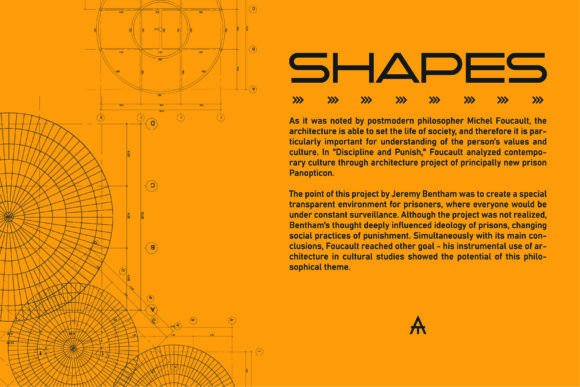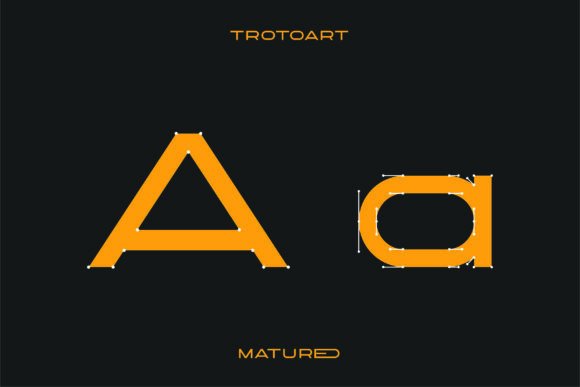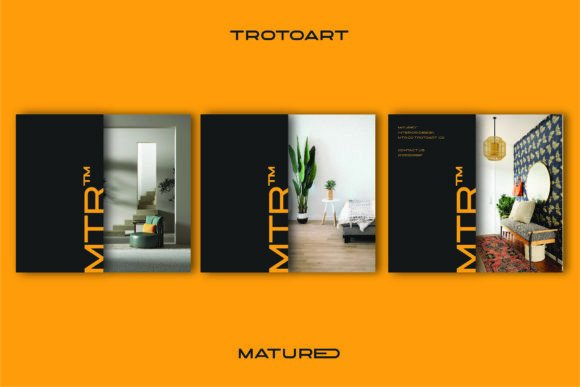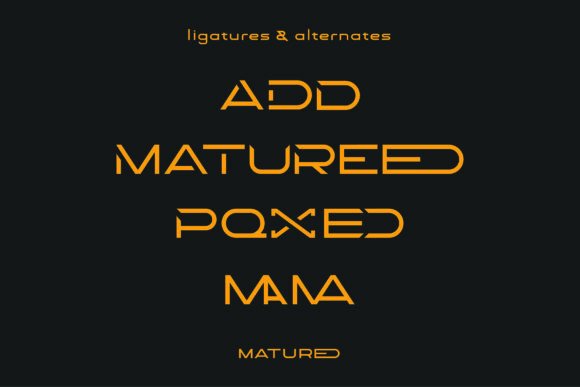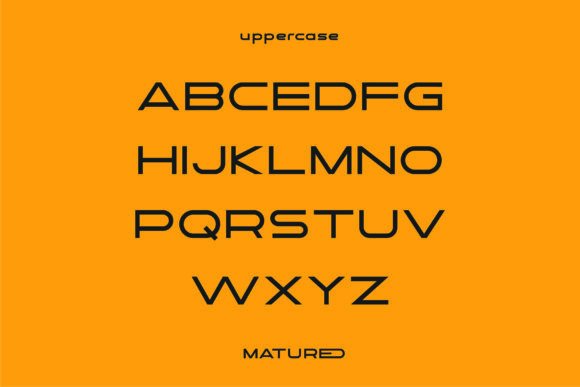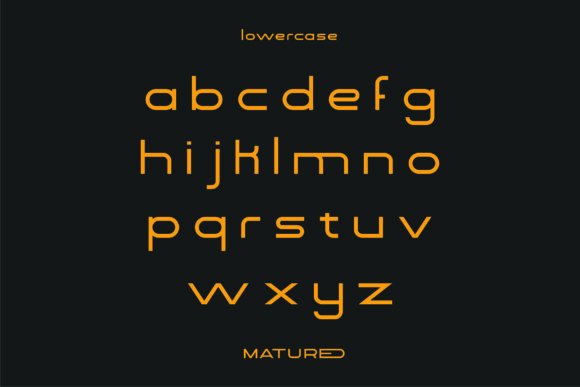
Introduction to Matured Font
Remember that moment when you’re working on a project and you finally find the perfect font to bring your design to life? It’s a feeling like no other, and for designers, it’s a crucial element that can make or break the success of a creative project. For those who have been searching for a high-quality sans serif font that exudes style and sophistication, we’re excited to introduce you to the Matured Font.
This modern and neat font is a valuable resource for designers, offering a level of versatility that makes it suitable for a wide range of projects. Whether you’re working on a graphic design project, a logo, or even a website, the Matured Font is sure to impress. With its clean lines and transparent background, this font is a design enthusiast’s dream come true.
Key Features of Matured Font
- High-quality design resource with a unique and elegant style, suitable for creative projects.
- Unique characteristics include subtle texture and refined lines, adding depth and sophistication to any design project.
Honest Review: Matured Font
I recently had the chance to work with Matured Font for a creative project, and I must say it was a pleasant experience. This font has all the qualities of a high-quality design resource, making it perfect for a wide range of applications.
Here are some of the things that work well with Matured Font: ✨ Unique design style: The font has a distinct and elegant design that sets it apart from other fonts in the same category. ✨ Transparent background: The font’s transparent background makes it easy to layer with other design elements. ✨ Free download: The font is available for free download, making it a great resource for designers on a budget.
However, there are some limitations to consider: ⚠️ Limited character set: The font only includes a limited set of characters, which may not be suitable for all design projects. ⚠️ Not suitable for large text: The font is best used for smaller text sizes, as it may become difficult to read at larger sizes.
Overall, I’m impressed with Matured Font and would recommend it to designers looking for a high-quality, elegant font for their creative projects.
- Unique design style
Matured Font
Matured Font is a high-quality design resource perfect for adding a touch of sophistication to your creative project. This elegant font is available for free download and features a transparent background, making it easy to integrate into your design.
Tips for Getting the Most Out of Matured Font
To get the most out of Matured Font, be sure to use it in conjunction with other high-quality design elements. Experiment with different font sizes, colors, and arrangements to create a unique and eye-catching design.
Matured Font is perfect for use in a variety of creative projects, including business cards, brochures, and website headers. Its elegant and sophisticated design makes it a great choice for formal or professional applications.